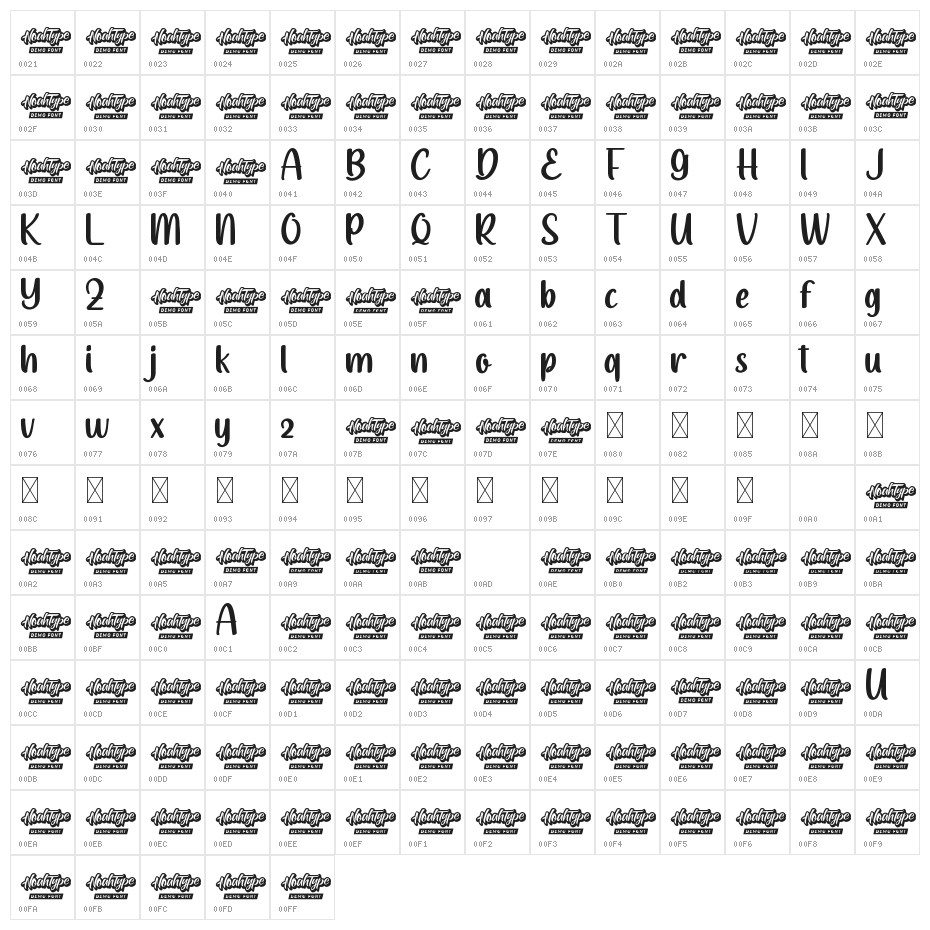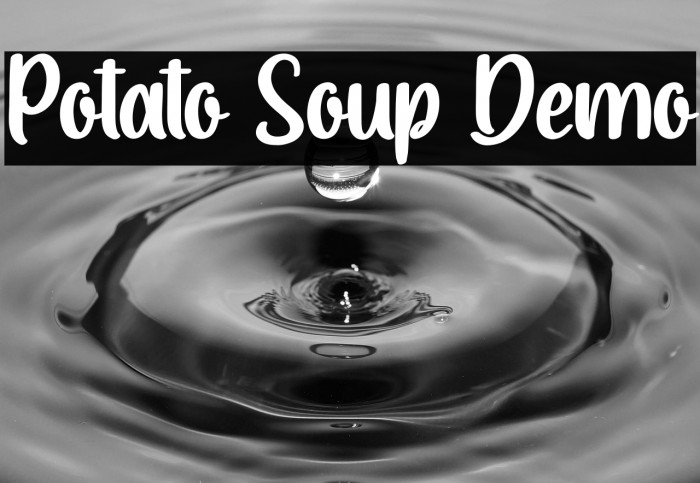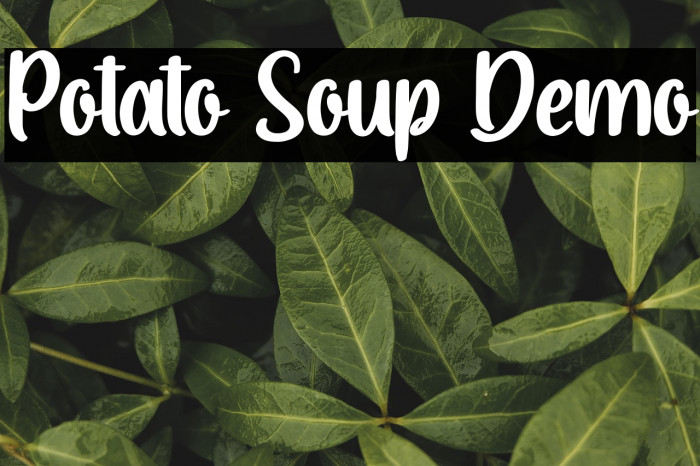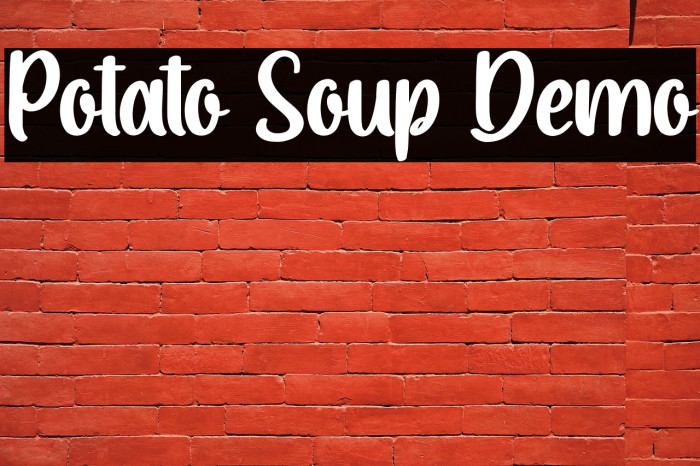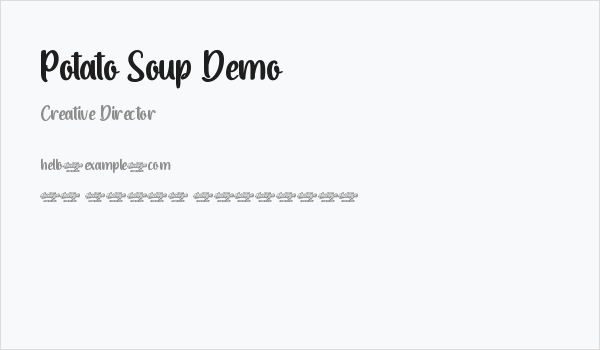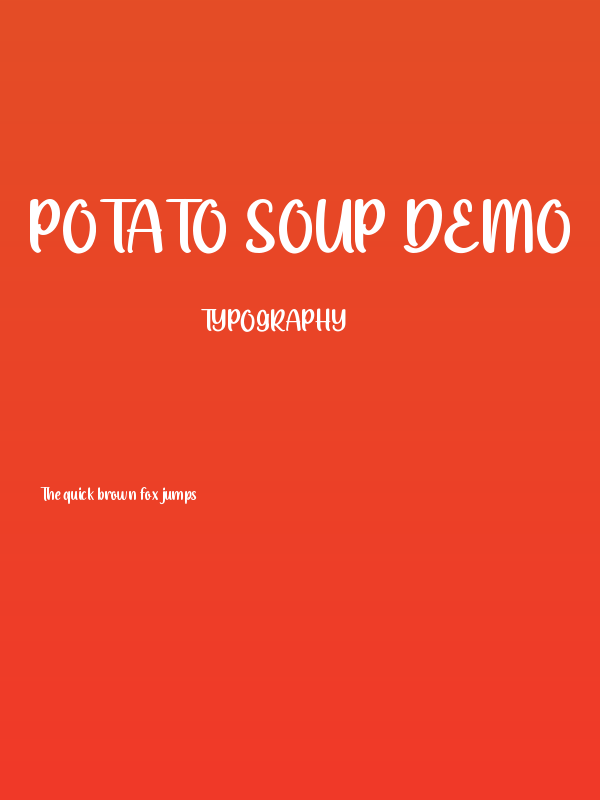
Potato Soup Demo Font
Potato Soup Demo Description
This font features a playful and bold script style with a smooth, flowing appearance. The uppercase letters are tall and slightly narrow, with a consistent stroke width that gives them a strong presence. The lowercase letters maintain a similar style, with rounded edges and a friendly, approachable feel. The font includes a full set of numerals and a selection of special characters, all designed to match the overall aesthetic. The characters are well-spaced, ensuring readability while maintaining the font's unique character. This font is ideal for projects that require a touch of whimsy and creativity.
| Proposed Projects | Ideal for greeting cards, playful branding, children's books, and creative posters. |